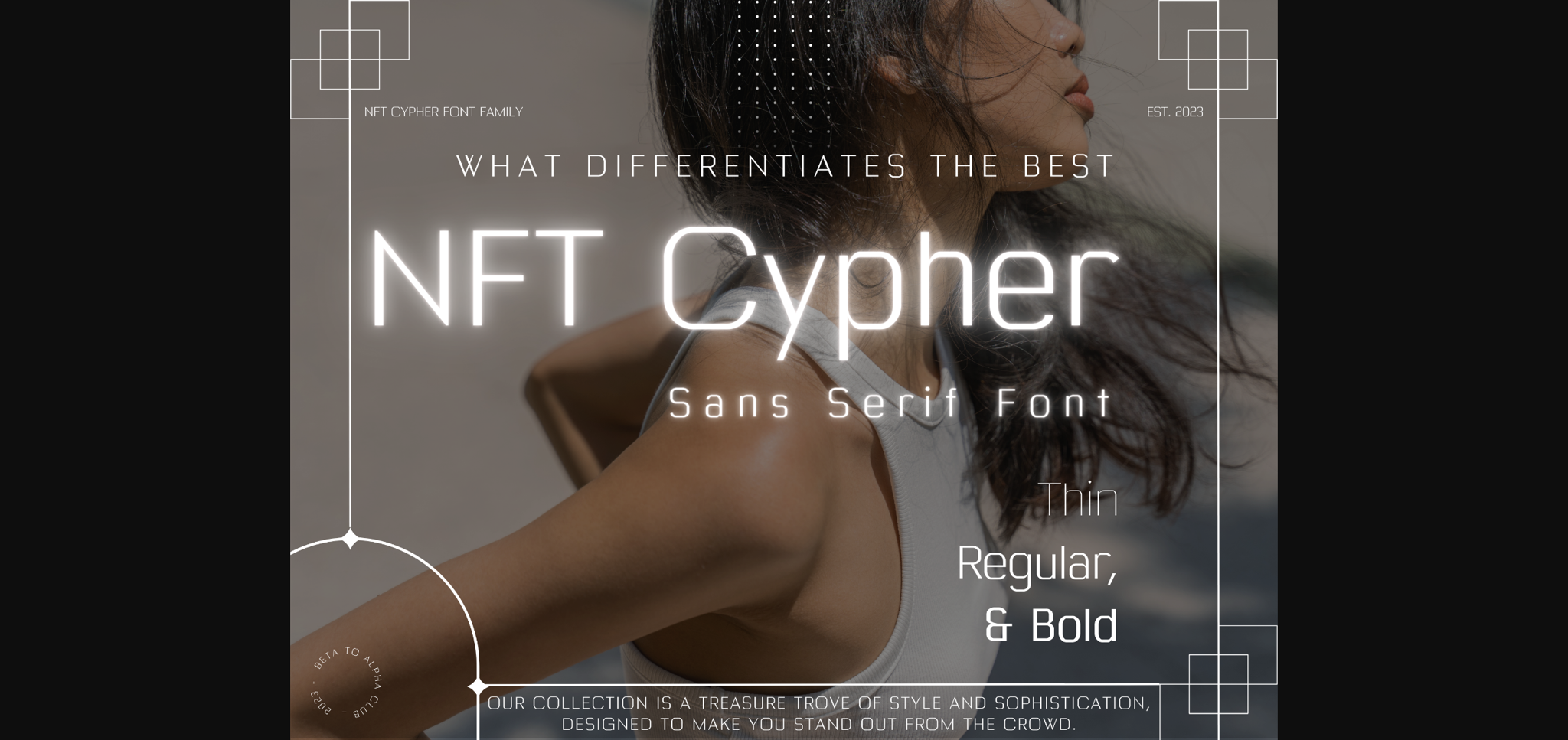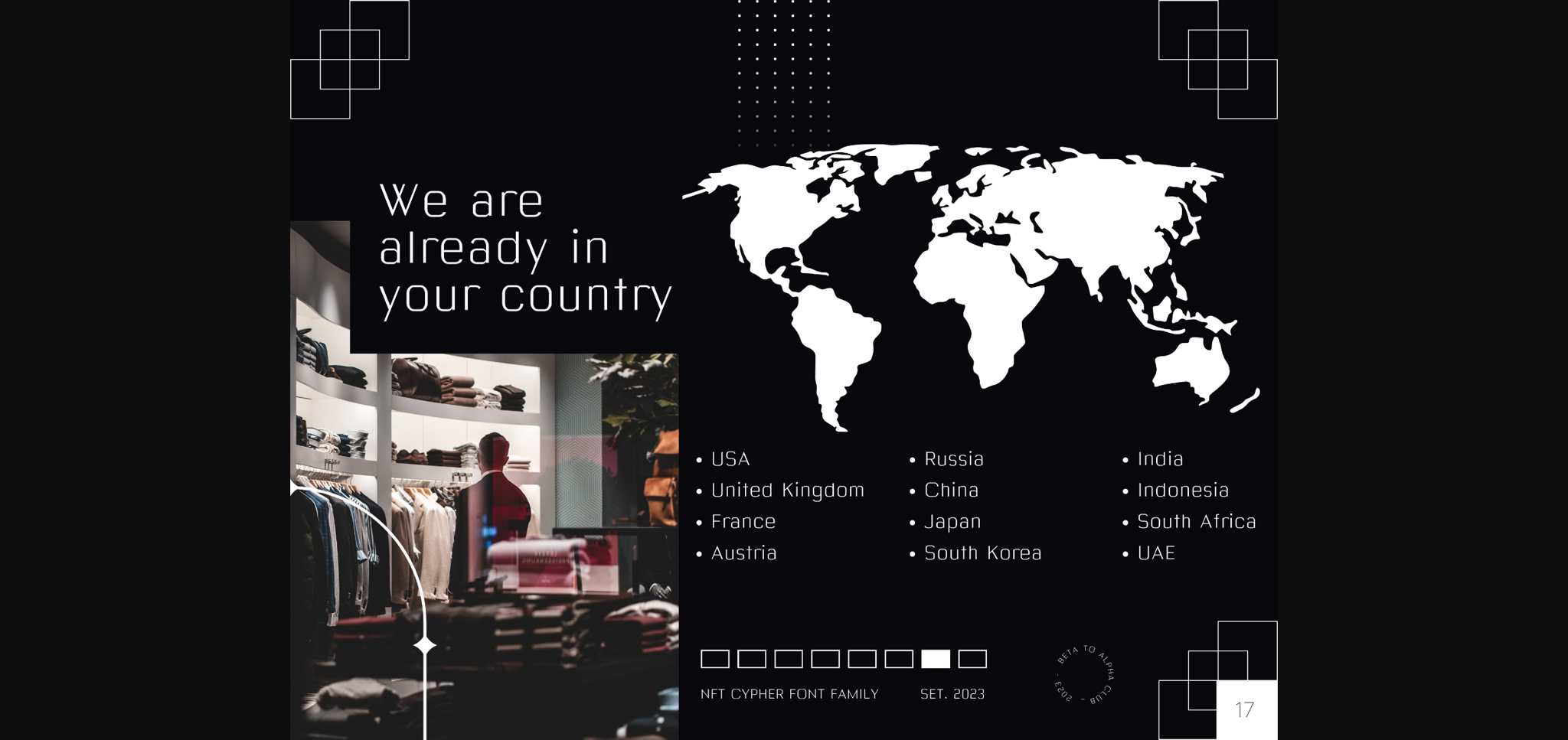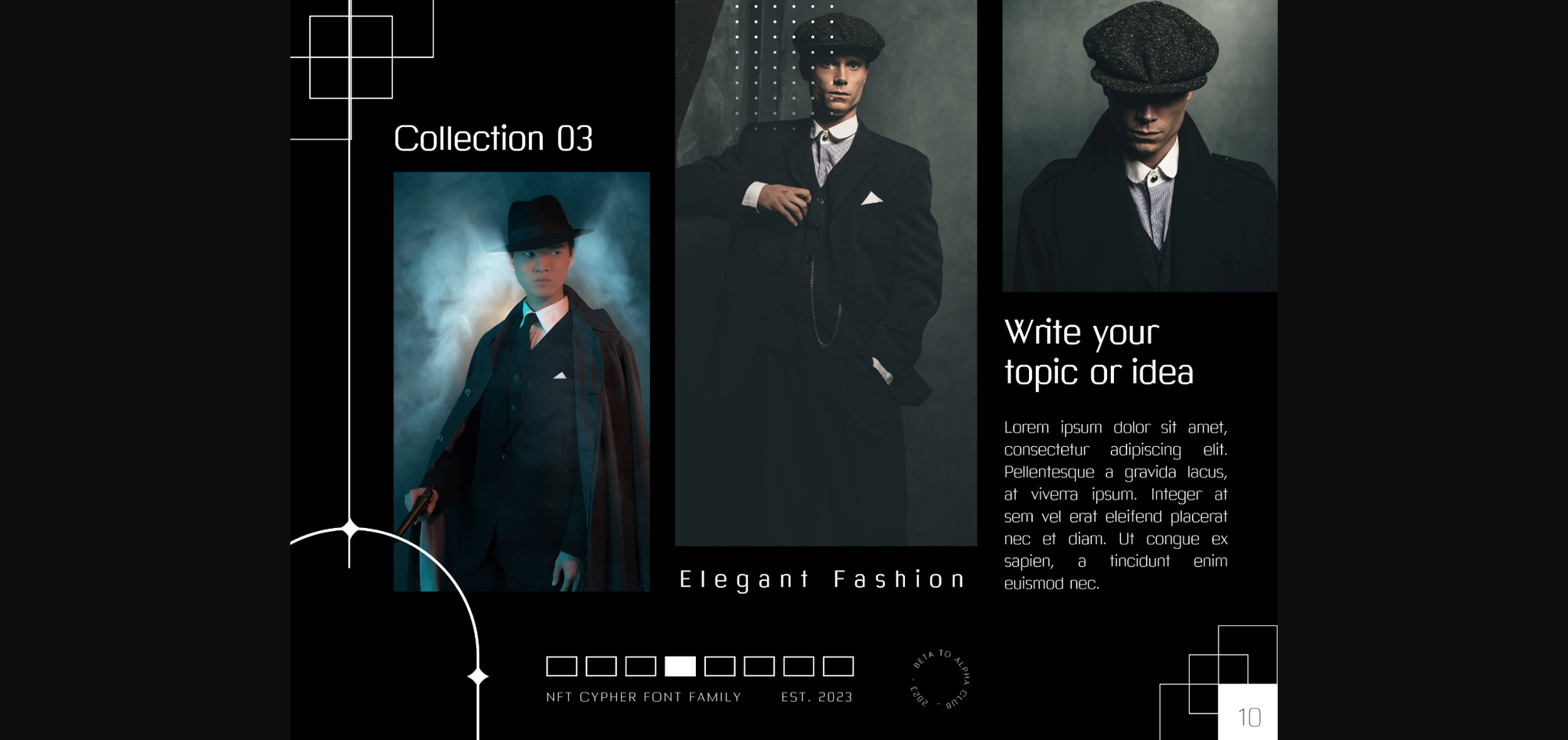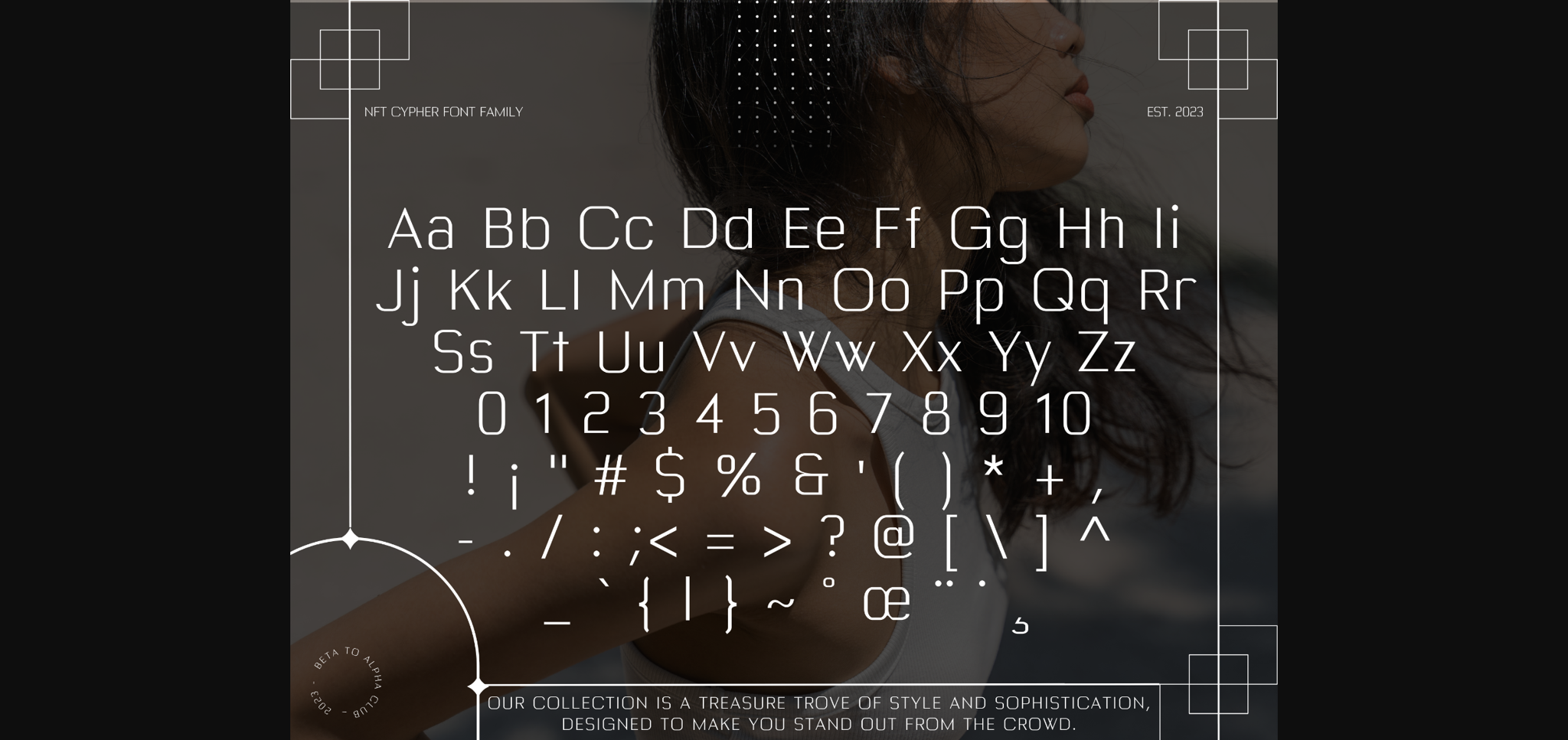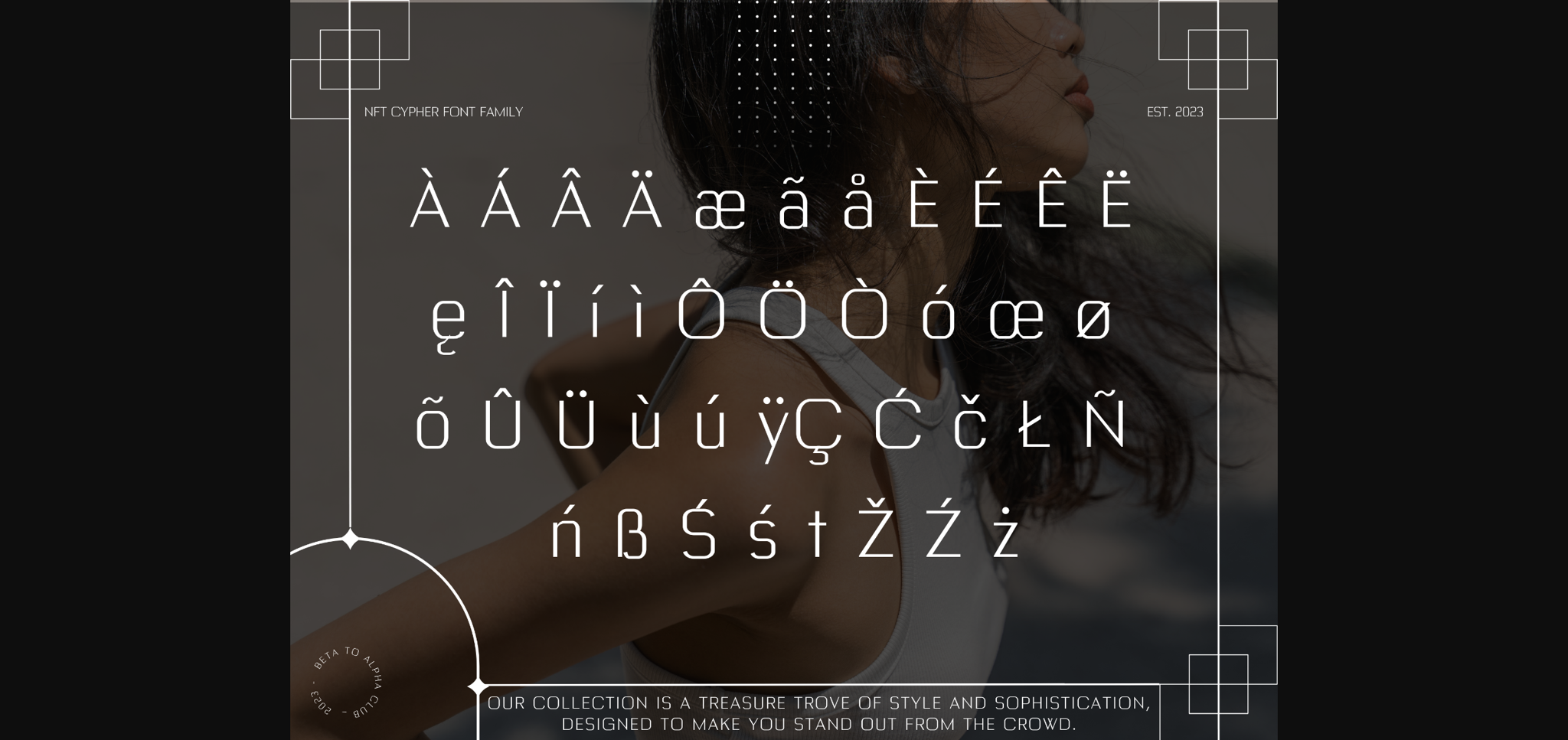
About Nft Cypher Font
Elevate your designs with grace, versatility, and authority. From logos to digital masterpieces, NFTC ignites creativity. Don’t miss out, seize it now,
Unleash a New Realm of Creativity with the NFTC Font Family! This dynamic trio – Thin, Regular, and Bold – offers a symphony of style for your designs. The Thin variant brings an air of delicacy, the Regular strikes a perfect balance, and the Bold commands attention with authority.
From logo creation to digital masterpieces, NFTC Font Family injects life and character into every project. It’s a toolkit for designers seeking elegance, versatility, and power. Don’t let your designs settle for ordinary – seize the extraordinary with the NFTC Font Family today!
Unleash a New Realm of Creativity with the NFTC Font Family! This dynamic trio – Thin, Regular, and Bold – offers a symphony of style for your designs. The Thin variant brings an air of delicacy, the Regular strikes a perfect balance, and the Bold commands attention with authority.
From logo creation to digital masterpieces, NFTC Font Family injects life and character into every project. It’s a toolkit for designers seeking elegance, versatility, and power. Don’t let your designs settle for ordinary – seize the extraordinary with the NFTC Font Family today!